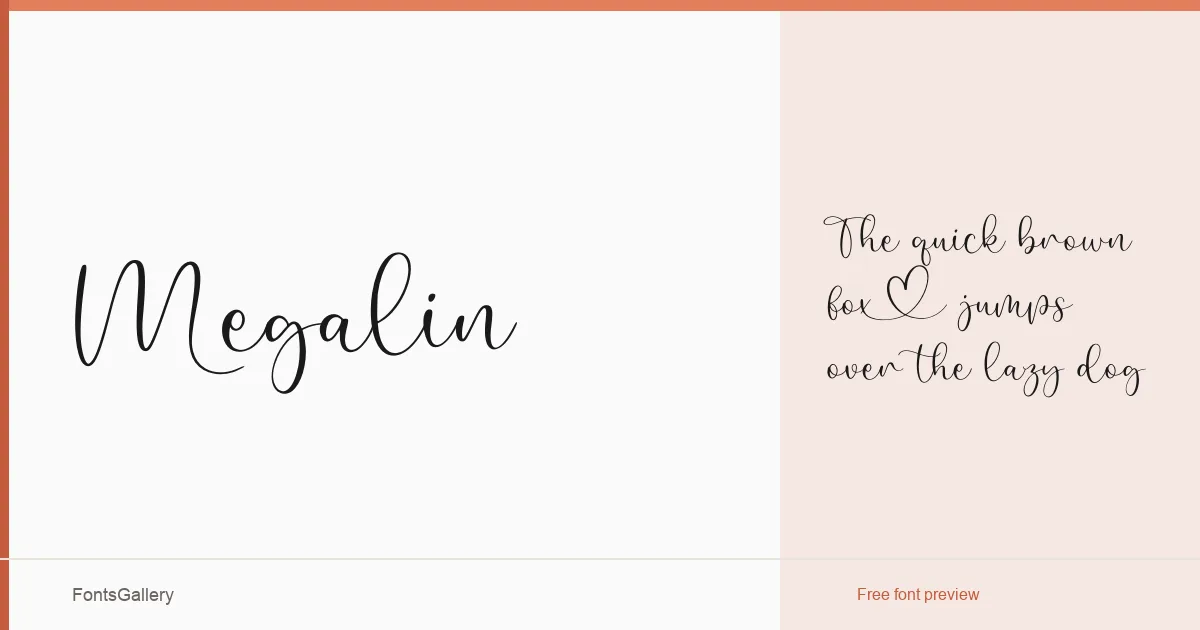
About Megalin Font
Megalin is an elegant script typeface crafted by Anns Rifky Anhar and Bias Surya Buana under the Anxietype Foundry. Rooted in a romantic and classic sensibility, it brings a refined, timeless charm to any project it graces. Its flowing script character makes it an instantly expressive choice for designs that call for sophistication and warmth.
Megalin's letterforms embody the grace of classic script tradition, with smooth, sweeping strokes that evoke elegance and romance. Each character is thoughtfully crafted to flow naturally into the next, creating a sense of fluid continuity that feels both polished and personal. The overall aesthetic strikes a balance between timeless classicism and contemporary refinement.
Megalin shines in applications such as wedding stationery, invitation cards, greeting cards, logos, and branding projects where an elegant, romantic tone is desired. Its expressive script style lends itself beautifully to luxury and lifestyle brands seeking a distinctive, heartfelt voice. For a compelling typographic contrast, consider pairing Megalin with Aresink or the clean neutrality of Helvetica to achieve a well-balanced, versatile layout.